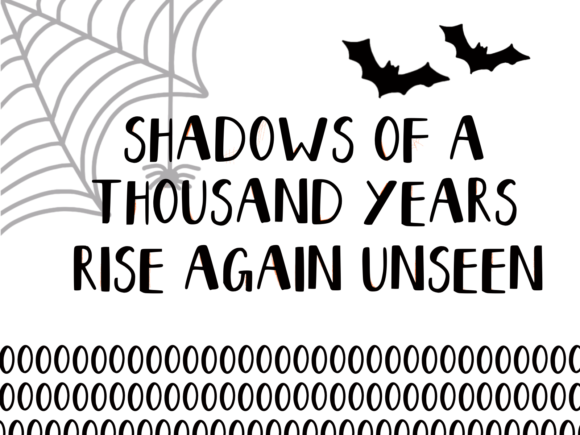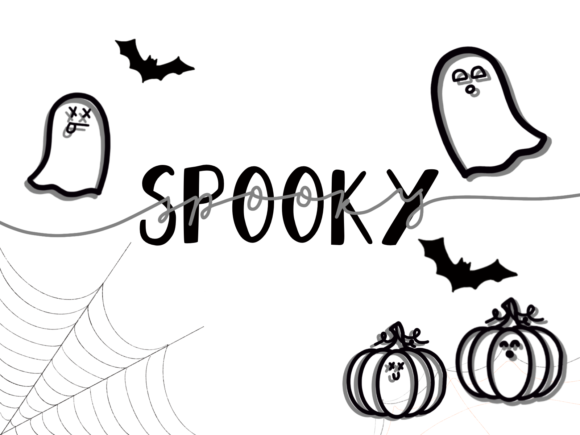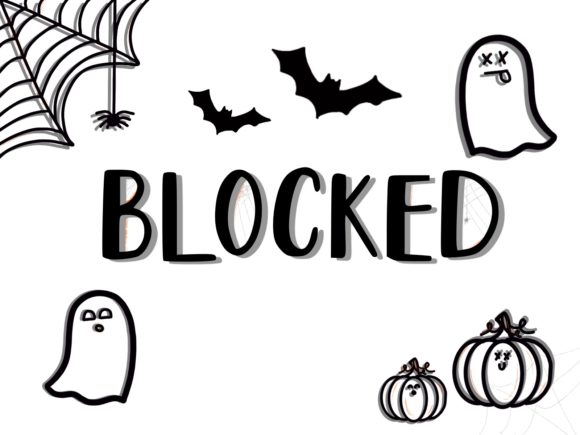
Unleash the Spooky Spirit with Blocked – Halloween Theme Font
As the spookiest time of the year approaches, designers and crafters are on the lookout for the perfect font to add a touch of eerie elegance to their Halloween-themed creations. Look no further than Blocked, a modern handwritten font that’s sure to cast a spell on your audience. With its heavy weight and playful vibe, Blocked is the ideal choice for posters, headings, and greeting cards that will make your Halloween and Christmas designs stand out from the crowd.
The Blocked Font – A Perfect Blend of Modern and Whimsical
Blocked is a modern handwritten font that’s been carefully crafted to bring a sense of fun and playfulness to your designs. Its heavy weight gives it a bold and eye-catching presence, making it perfect for posters, headings, and titles. The font’s whimsical nature also makes it an excellent choice for greeting cards, invitations, and other festive designs. Whether you’re creating a spooky Halloween poster or a merry Christmas card, Blocked is the perfect font to add a touch of personality to your project.
Why Choose Blocked for Your Halloween Designs?
So, what makes Blocked the perfect font for your Halloween designs? Here are just a few reasons why designers and crafters love this font:
• Heavy weight**: Blocked’s bold and heavy weight gives it a commanding presence that’s sure to grab attention.
• Playful vibe**: The font’s playful nature adds a touch of whimsy and fun to your designs, making them perfect for Halloween and Christmas.
• Versatility**: Blocked can be used for a wide range of designs, from posters and headings to greeting cards and invitations.
• Easy to read**: Despite its bold weight, Blocked is easy to read, making it perfect for designs that need to be both eye-catching and legible.
How to Use Blocked in Your Designs
• Pair with other fonts**: Blocked pairs well with other fonts, so feel free to experiment with different combinations to create a unique look.
• Use for headings and titles**: Blocked’s bold weight makes it perfect for headings and titles, where you want to grab attention.
• Add some texture**: Add some texture to your designs by using Blocked in combination with other design elements, such as images or graphics.
Halloween and Christmas Design Ideas with Blocked
Here are a few design ideas to get you started with Blocked:
• Halloween posters**: Create eye-catching Halloween posters with Blocked as the main font.
• Christmas cards**: Use Blocked to create festive Christmas cards that are sure to delight your friends and family.
• Invitations**: Create spooky Halloween invitations or merry Christmas invitations with Blocked.
• Greeting cards**: Use Blocked to create a range of greeting cards for different occasions, from Halloween and Christmas to birthdays and anniversaries.
Font Name Blocked – Halloween Theme Font
Author fonts.ness